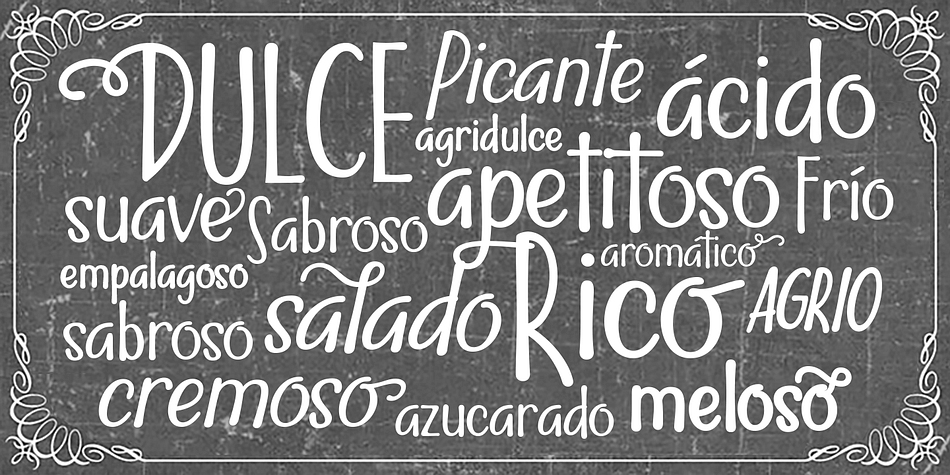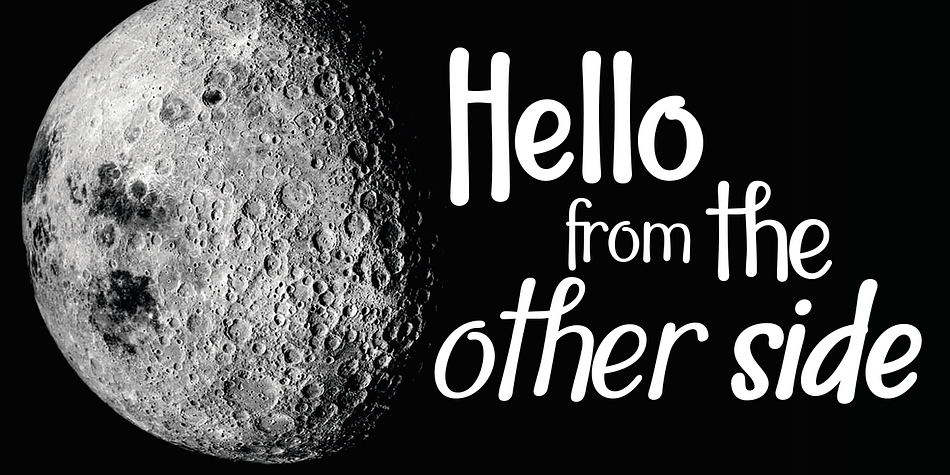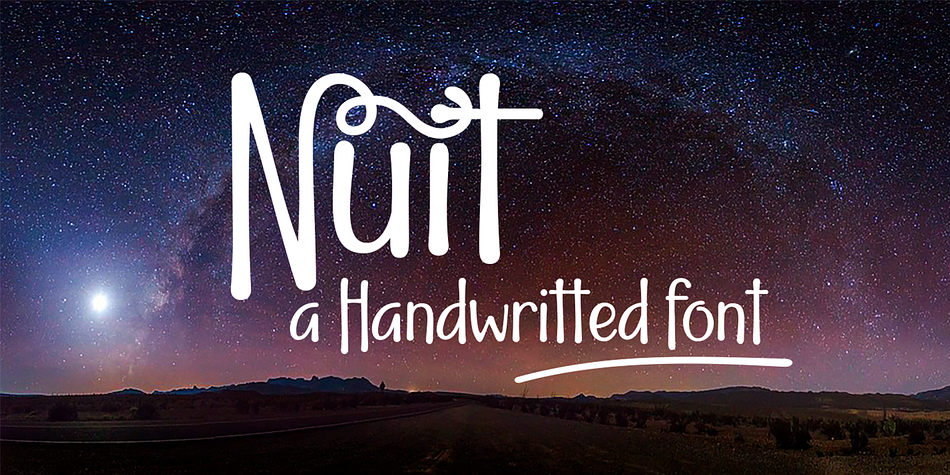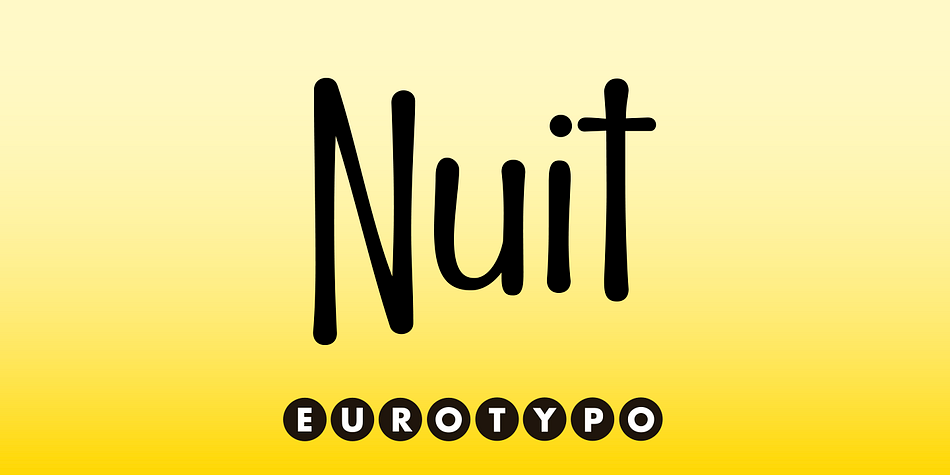
Designed by Carine de Wandeleer, Nuit is a hand drawn font family. This typeface has four styles and was published by Eurotypo.
Nuit, a delightfully handwritten family of fonts with strong character. Its slight bounce and intentional irregularity, gives your words a wonderful flow. The fatness and thinness of their strokes give an impressive harmony.
Nuit fonts contains OpenType features such as Stylistics alternates, Swashes, Ligatures, up to four Stylistic sets by letter, initial and terminal forms in upper and lower, ornaments that allow you to mix and match pairs of letters and a Central European language support to fit your design.
Nuit looks lovely on wedding invitations, greeting cards, logos, posters, labels, t-shirt design, logos, business-cards and is perfect for using in ink or watercolor based designs, fashion, magazines, food packaging and menus and book covers.